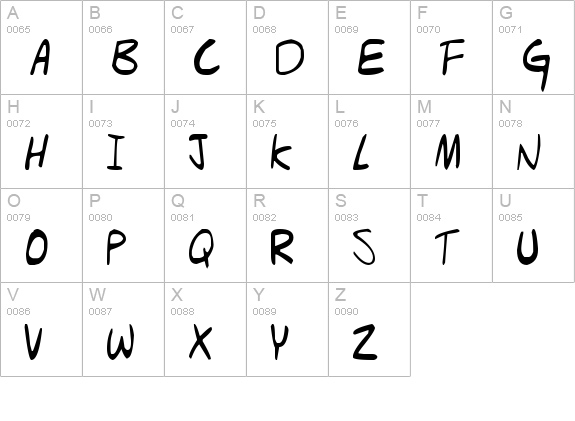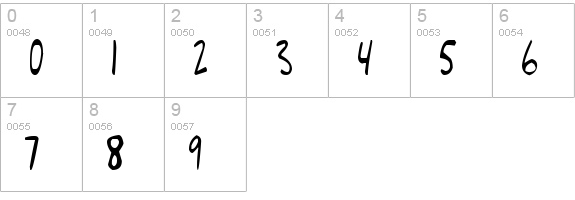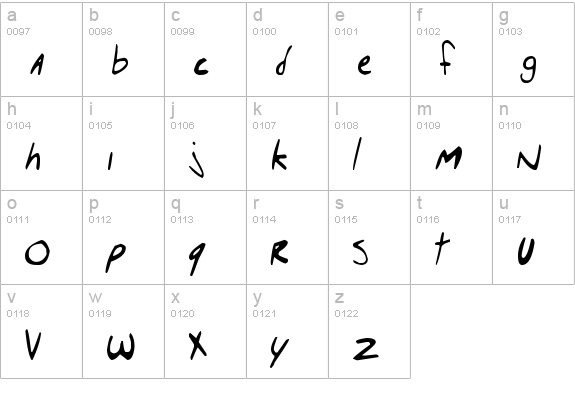
Hello Brady's Dad! Font Details
Introducing Hello Brady's Dad! font, a delightful and charming typeface that exudes warmth and familiarity. This font is the perfect choice for adding a personal touch to your projects, whether it be greeting cards, invitations, or branding materials. Hello Brady's Dad! font features a unique combination of playful curves and bold strokes, creating a harmonious balance between elegance and friendliness. Its versatile nature allows it to be used for both formal and informal designs, making it suitable for a wide range of applications. What sets Hello Brady's Dad! font apart is its accessibility - it is freely available to download at FontsMarket.com. That's right, you can enhance your creative endeavors without spending a penny. This font is a true gem for designers and individuals alike, who appreciate quality without compromising on budget. With Hello Brady's Dad! font, you can effortlessly capture attention and create a lasting impression. Its legibility and distinct character will make your text stand out, ensuring that your message is heard loud and clear. So, why wait? Take advantage of the free availability of Hello Brady's Dad! font today and elevate your designs to a whole new level of charm and appeal. Download it now at FontsMarket.com and let your creativity soar.